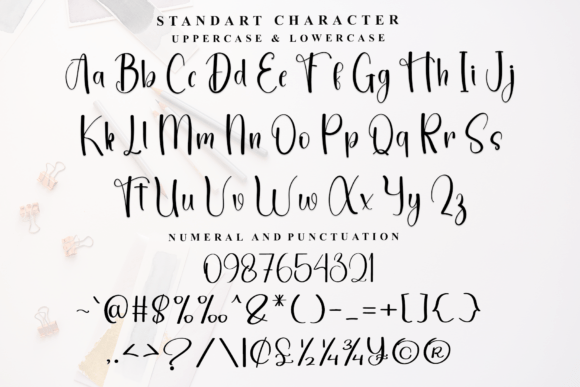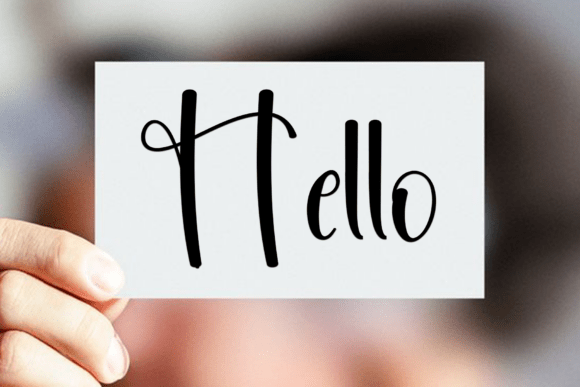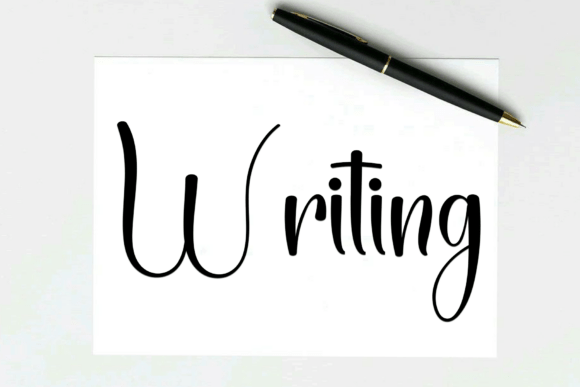
Introduction to Ladybird Font
Have you ever stared at a blank canvas, eager to bring your creative project to life? The thrill of watching your imagination unfold, the rush of excitement as the first brushstrokes take shape – it’s a moment we designers live for. And what’s the secret to making that moment even more magical? The perfect font, of course!
Among the numerous fonts available, one stands out for its unique charm and versatility: the Ladybird Font. With its soft, distinctive strokes and natural beauty, it’s a design resource that can elevate your projects to the next level. Whether you’re working on a design project, crafting a special gift, or simply looking for a high-quality font to enhance your creative work, the Ladybird Font is an ideal choice.
Key Features of Ladybird Font
- Features a clean and modern design aesthetic, suitable for various design applications.
Honest Review: Ladybird Font
I recently had the chance to work with the Ladybird Font for a creative project, and I must say it’s a fantastic design resource. One of the standout features of this font is its high quality and versatility.
- ✨ Unique and playful style that’s perfect for adding a touch of whimsy to any design.
- ⚠️ Limited number of styles and weights, which can make it less suitable for complex designs.
Overall, I’m impressed with the Ladybird Font and would definitely recommend it to designers looking for a high-quality, free design resource. With its unique style and versatility, it’s a great addition to any design arsenal.
Tips for Getting the Most Out of the Ladybird Font
Use the Ladybird Font in a creative project to add a touch of whimsy and personality. Experiment with different font sizes and styles to create visual interest. Consider pairing the Ladybird Font with a high-quality image or design element to enhance your design.
The Ladybird Font is a versatile design resource that can be used in a variety of creative projects, including digital art, print designs, and even web graphics. Some common use cases include:
- Children’s book illustrations
- Party invitations and decorations
- Graphic novels and comics